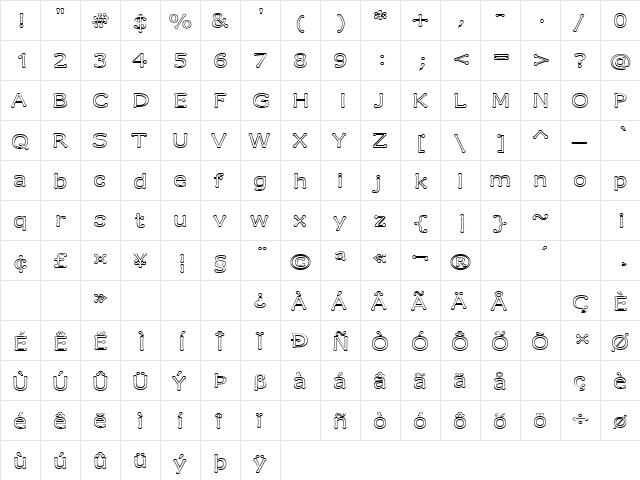
Drummon Outline Regular
Design Context for Drummon Outline Typeface
Drummon Outline brings ornamental detail and strong personality to headlines and identities, where visual impact matters more than quiet functionality.
Font Pairing: Pair with a clean neutral sans-serif for body copy to let Drummon Outline's character lead without overwhelming the composition.
Pro Tip: Treat Drummon Outline as the centrepiece of your typographic hierarchy. One strong heading set in a decorative face can carry an entire layout.